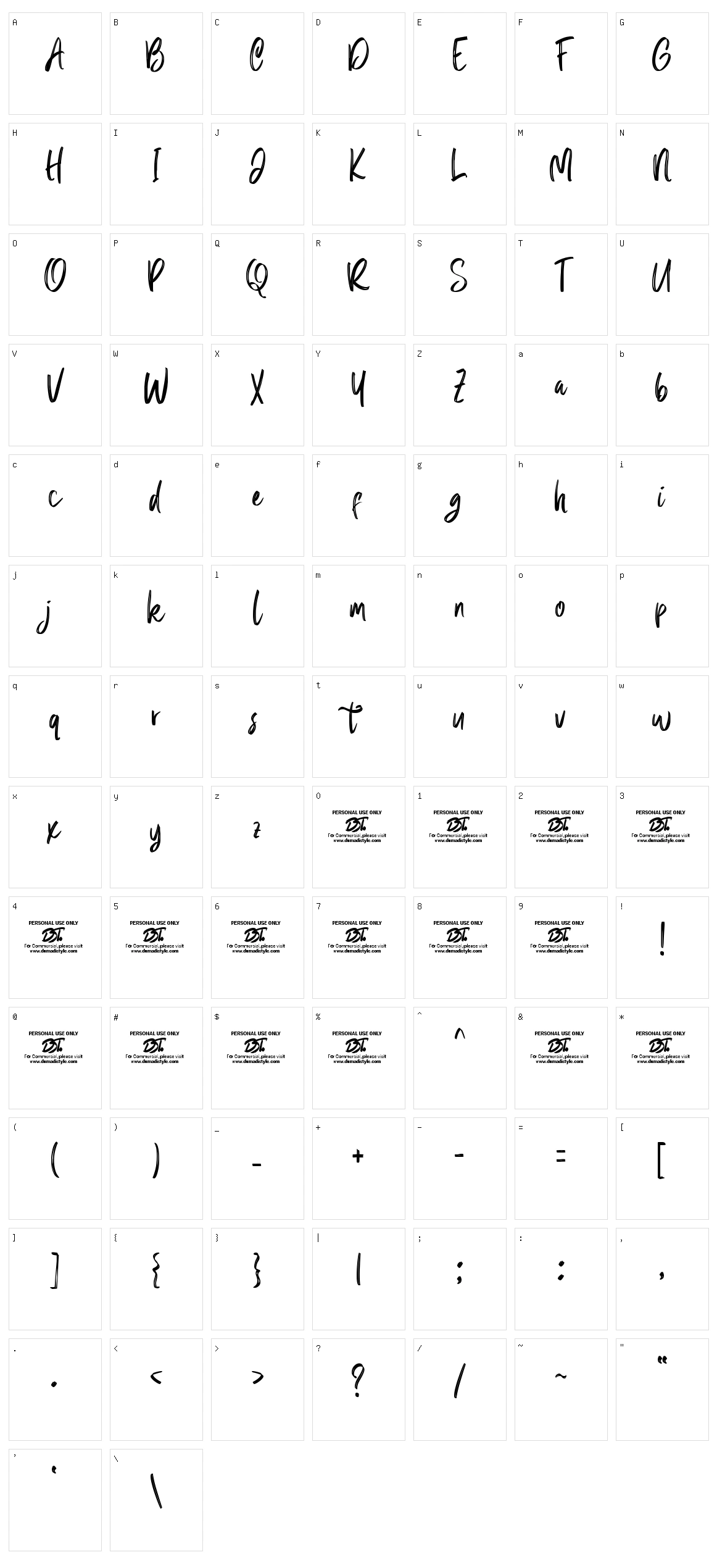
The free font Faxnes is carefully designed by DumadiStyle, showcasing a thoughtful balance of creativity and usability and falls under the Script font style. When you download the ZIP file, it contains only 3485.78 KB of font files, making it lightweight and quick to download. Please review the license details below to understand permitted usage and distribution rights. If license information is not available, we recommend using this font for personal projects only or contacting the author directly for commercial usage permissions.